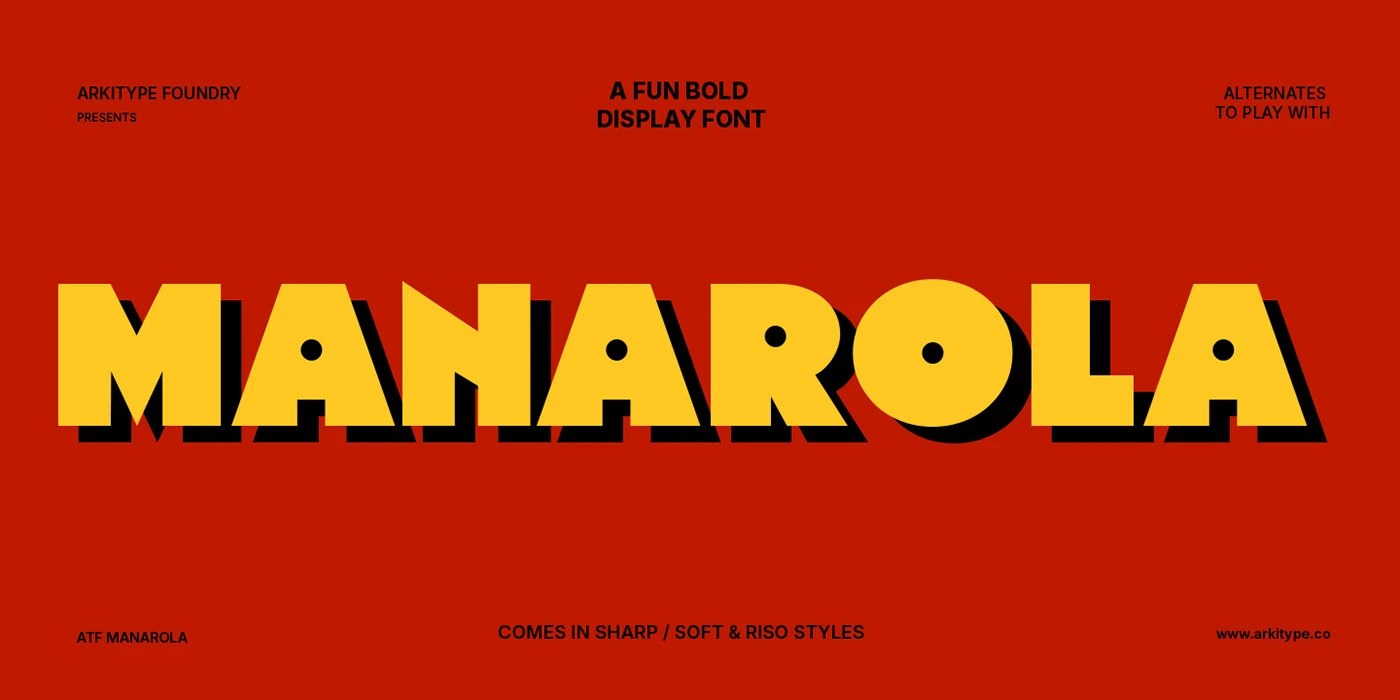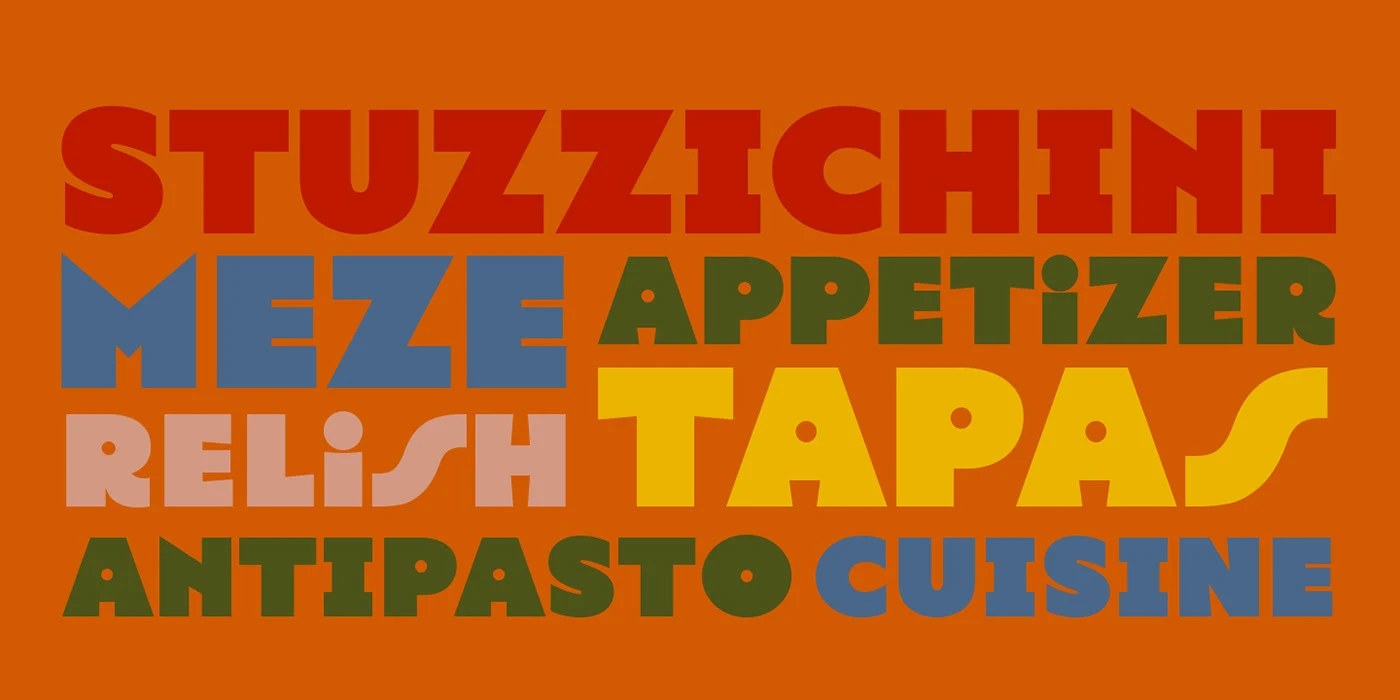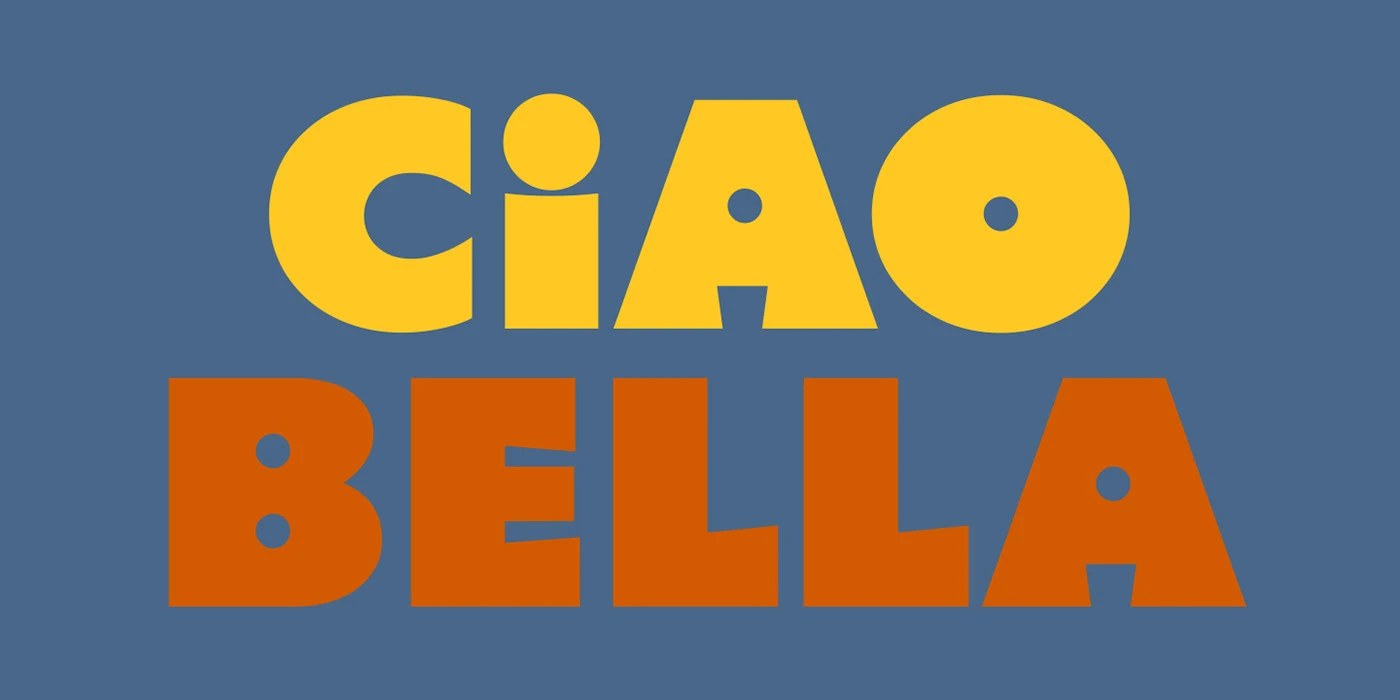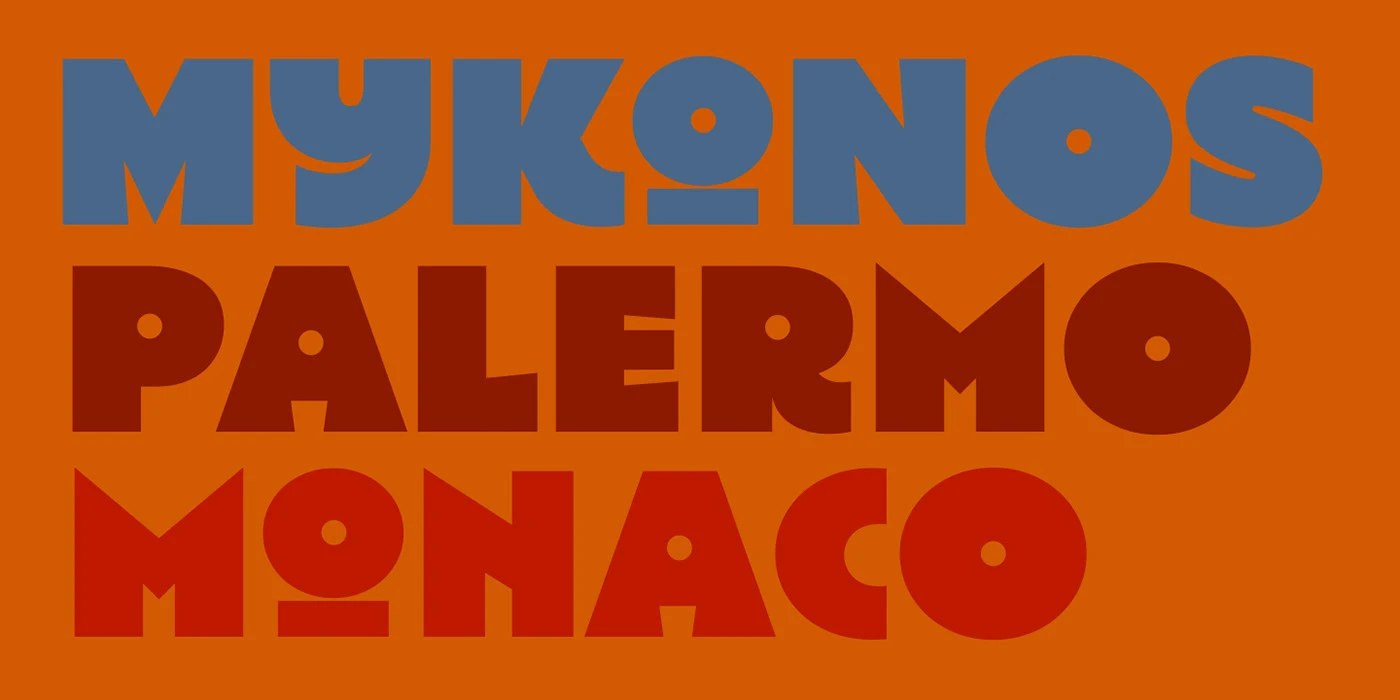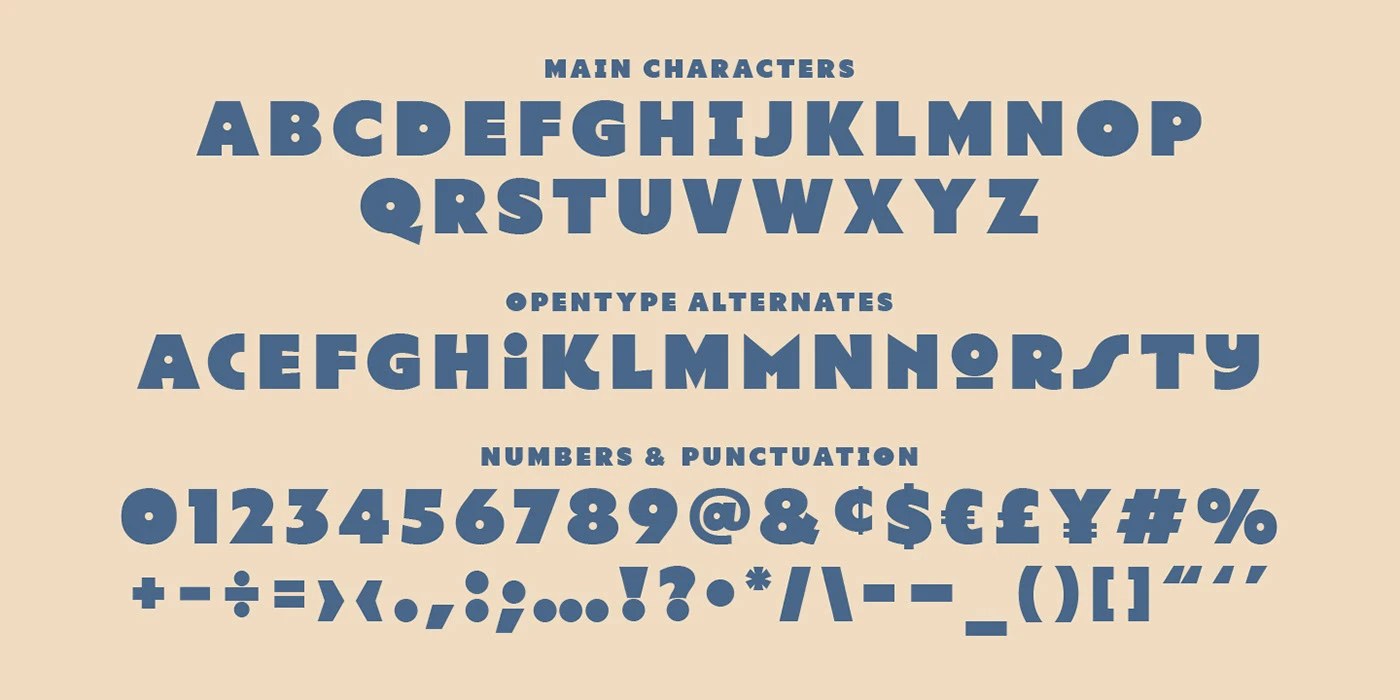
ATF Manarola Font by Arkitype Foundry
ATF Manarola font is a bold display typeface by Arkitype Foundry, built in vintage Italian signage tradition with three styles and Mediterranean palette.
Arkitype Foundry built the ATF Manarola font around a handful of very deliberate decisions. The Regular style carries a flat-angled extrusion shadow — about 15 to 20 percent of cap height, dropping downward-right — that reads as physical depth rather than decoration. Circular counters run through the family: the dot of the lowercase i, the O, every round aperture becomes a perfect disc instead of open space. That one choice gives the font a toy-like solidity that holds at any size. The Soft Riso style layers a fine scatter of flecks across every stroke, simulating Risograph ink-bleed without muddying the forms. Color in the specimen works in saturated two-tone pairs — deep red with yellow, burnt orange with blue, olive with orange — a palette that reads as found rather than assembled.
ATF Manarola Font: Display Type for Food and Hospitality Branding
The ATF Manarola font ships in three cuts: Regular, Soft, and Soft Riso. Soft rounds every terminal to a consistent radius, turning the A crossbar from a bar into a rounded arch. The family targets headings, packaging, and food and hospitality branding — contexts where Mediterranean street-lettering warmth does real commercial work. For type with this kind of cultural specificity, the ATF Manarola font lands as a rare find. See the full project by Arkitype Studio / Andrew Footit on Behance.
ATF Manarola font wordmark in oversized yellow letters with black extrusion shadow on deep red background, Arkitype Foundry presentation slideATF Manarola font specimen setting food vocabulary words in multi-color display type on burnt orange backgroundATF Manarola font Regular style: PIZZA AMORE set in two-color layers with heavy black drop shadow on crimson red backgroundATF Manarola font Soft Riso style: OLIVE OIL! in Risograph-textured letters on saturated yellow with illustrated olive overlaysATF Manarola font numerals and punctuation glyphs displayed in orange, pink, and yellow Riso on dark olive green background